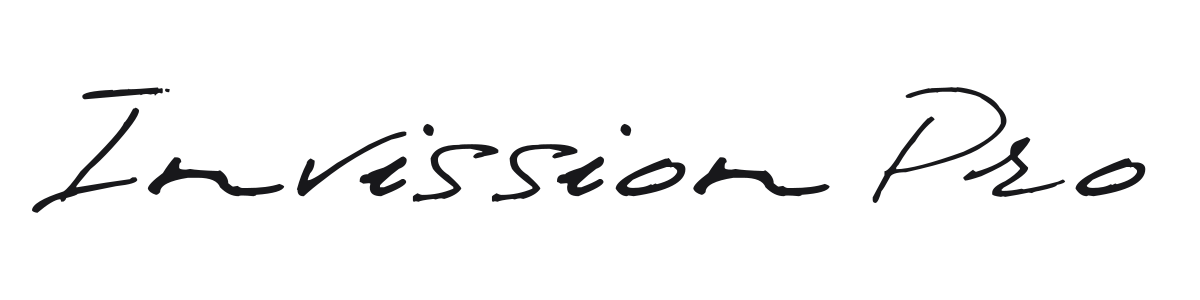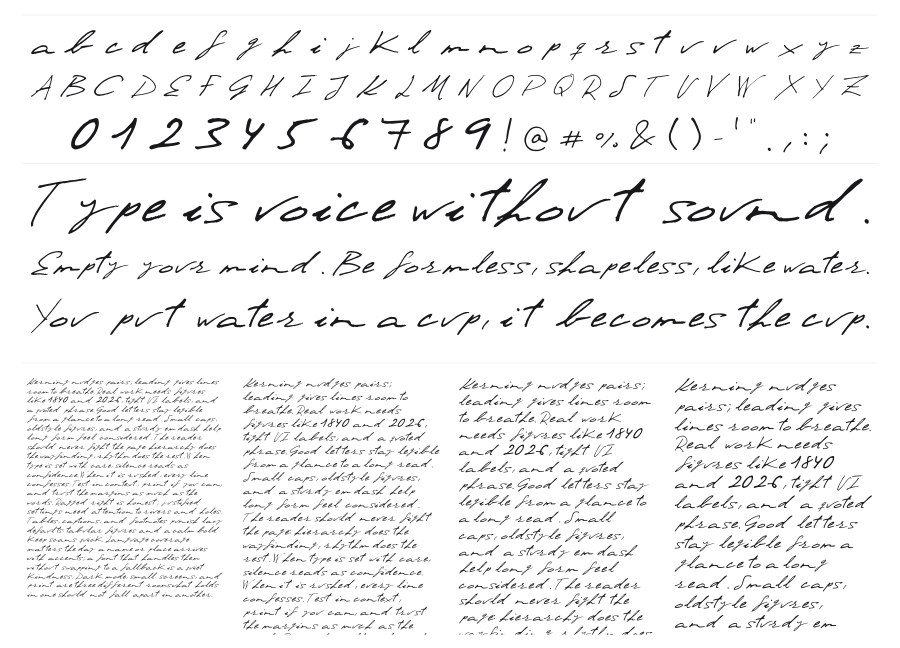
Invission Pro
Invission Pro is a casual handwritten script by Manuel Ramos with the loose, spontaneous feel of a quick signature. Its irregular rhythm, variable baseline, and ink-like trailing strokes give it a genuinely personal, unpolished quality that separates it from more polished calligraphic scripts. Works best at large display sizes where that rawness reads as character.